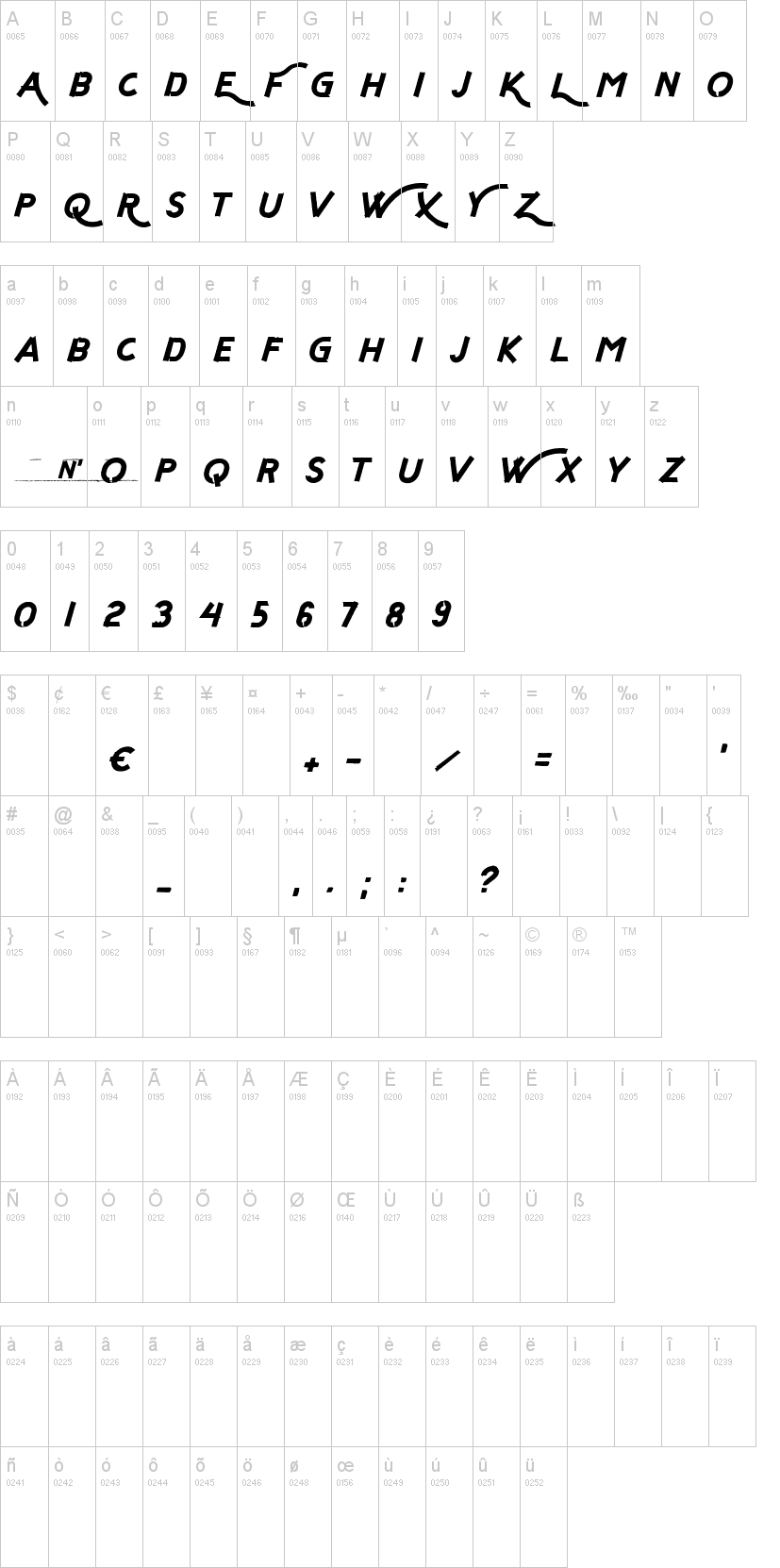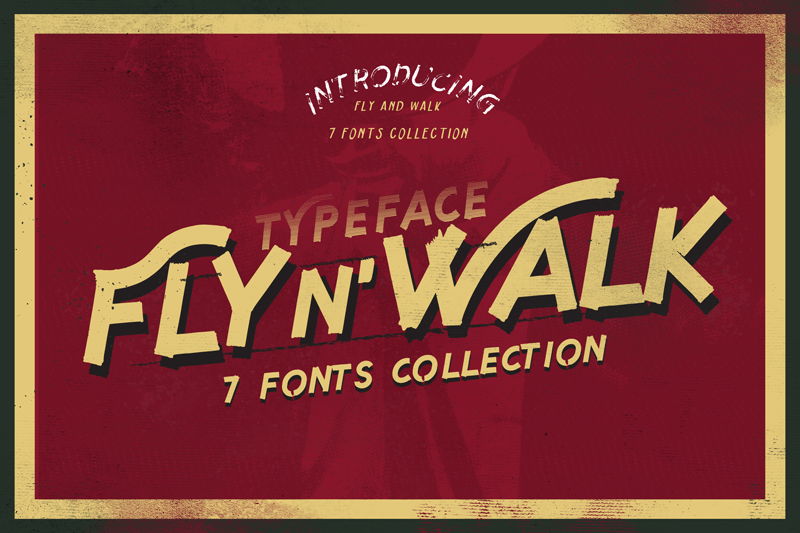
Fly n Walk
Note of the authorThis is handmade Font, Suitable for design, element design, wedding, event, t-shirt, logo, badges, sticker, and awesome work about summer.